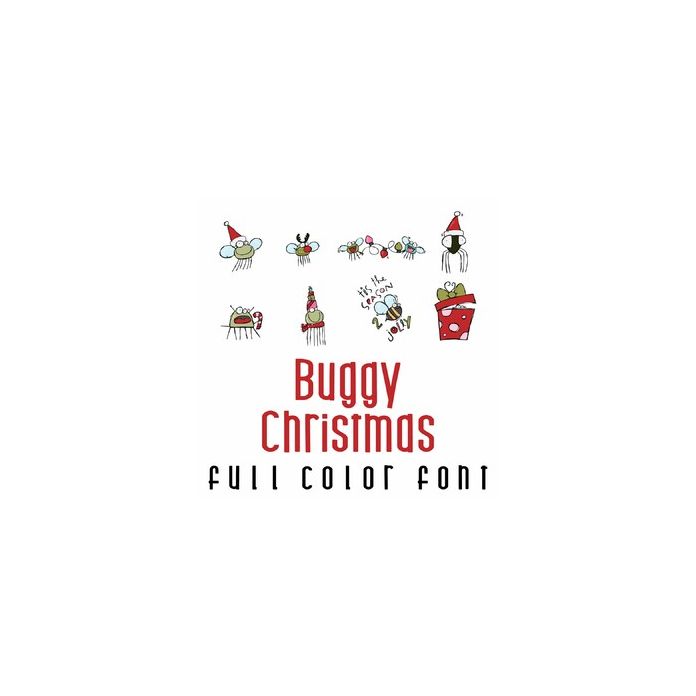
This fun full color doodlebat font features 26 adorable Christmas bugs and puns. Perfect for cards, crafts, gifts, decor, scrap book pages, planner stickers and more!